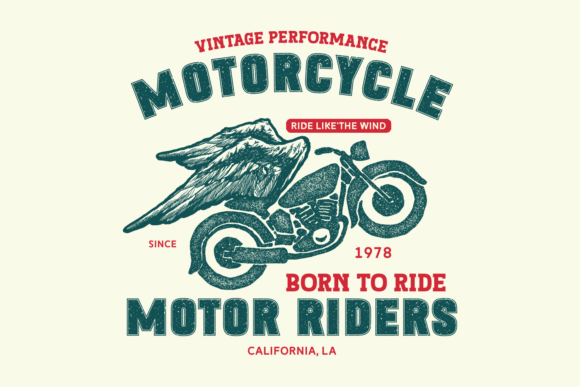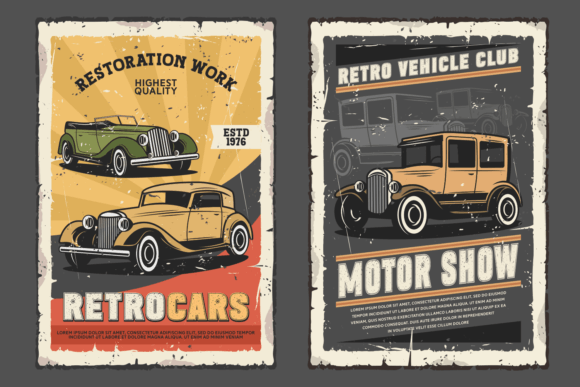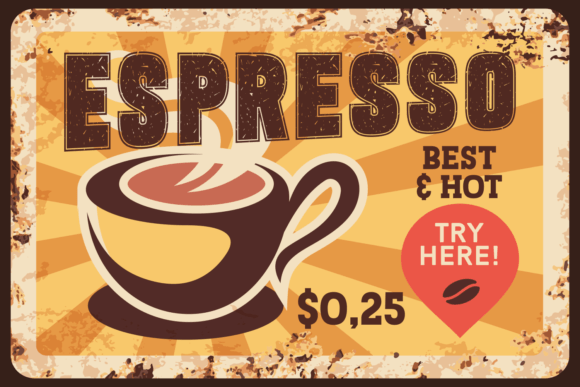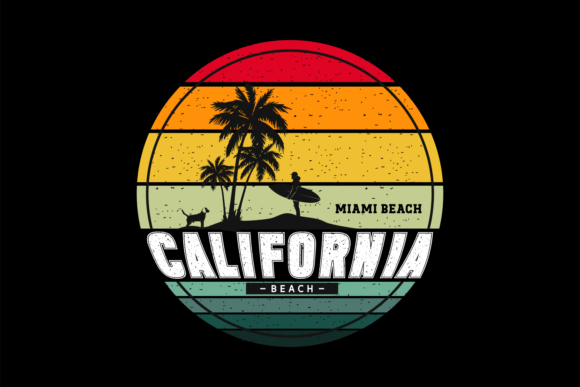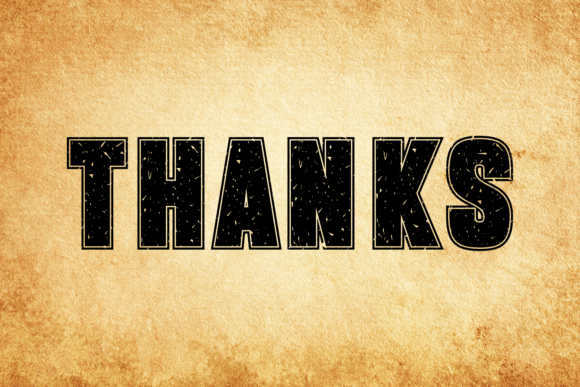
Gustavo Vintage Font: A Playful Nod to Nostalgia
In the world of design, fonts play a crucial role in conveying the tone and aesthetic of a project. For those seeking to add a touch of nostalgia and vintage charm, the Gustavo Vintage Font is an excellent choice. This serif font is designed to evoke a sense of playfulness and retro flair, making it perfect for a wide range of design ideas.
The Characteristics of Gustavo Vintage Font
Gustavo Vintage Font boasts a unique set of characteristics that set it apart from other fonts. Its serif design gives it a classic, timeless look that’s reminiscent of vintage typography. The font’s playfulness lies in its subtle imperfections and quirks, which add to its nostalgic charm. Whether you’re working on a logo, brochure, or social media graphics, Gustavo Vintage Font is sure to bring a touch of warmth and personality to your design.
Adding a Retro Touch to Your Designs
One of the standout features of Gustavo Vintage Font is its ability to instantly add a retro touch to any design. The font’s vintage aesthetic is perfect for designers and crafters looking to create materials that evoke a sense of nostalgia or timelessness. Whether you’re designing a poster, business card, or packaging, Gustavo Vintage Font can help you achieve a look that’s both classic and eye-catching.
Why Designers and Crafters Love Gustavo Vintage Font
Designers and crafters love Gustavo Vintage Font for its versatility and ease of use. The font is highly legible, making it suitable for body text and headlines alike. Additionally, its unique character set and stylistic alternates allow for endless creative possibilities. Whether you’re working on a personal project or a client’s brief, Gustavo Vintage Font is an excellent choice for anyone looking to add a touch of personality to their design.
Gustavo Vintage Font is an incredibly versatile font that’s suitable for a wide range of projects. Here are just a few ideas to get you started:
- Logos and branding: Use Gustavo Vintage Font to create a logo or brand identity that’s both classic and memorable.
- Posters and flyers: Add a touch of nostalgia to your posters and flyers with Gustavo Vintage Font’s playful, vintage aesthetic.
- Social media graphics: Use Gustavo Vintage Font to create eye-catching social media graphics that stand out from the crowd.
- Packaging and labels: Add a touch of personality to your packaging and labels with Gustavo Vintage Font’s unique character set.
Tips for Using Gustavo Vintage Font
To get the most out of Gustavo Vintage Font, here are a few tips to keep in mind:
- Experiment with different sizes: Gustavo Vintage Font looks great in a variety of sizes, from small body text to large headlines.
- Play with stylistic alternates: Gustavo Vintage Font comes with a range of stylistic alternates that can add an extra layer of personality to your design.
- Pair with modern fonts: For a striking contrast, try pairing Gustavo Vintage Font with a modern sans-serif font.
In conclusion, Gustavo Vintage Font is an excellent choice for designers and crafters looking to add a touch of nostalgia and vintage charm to their designs. With its playful, serif design and highly legible character set, this font is perfect for a wide range of projects. Whether you’re working on a logo, poster, or social media graphics, Gustavo Vintage Font is sure to bring a touch of personality and whimsy to your design.